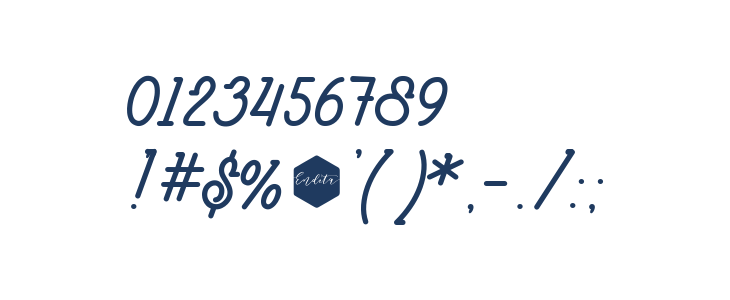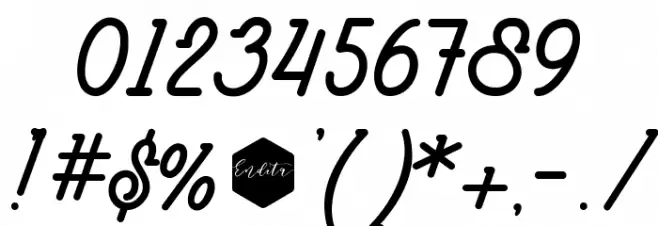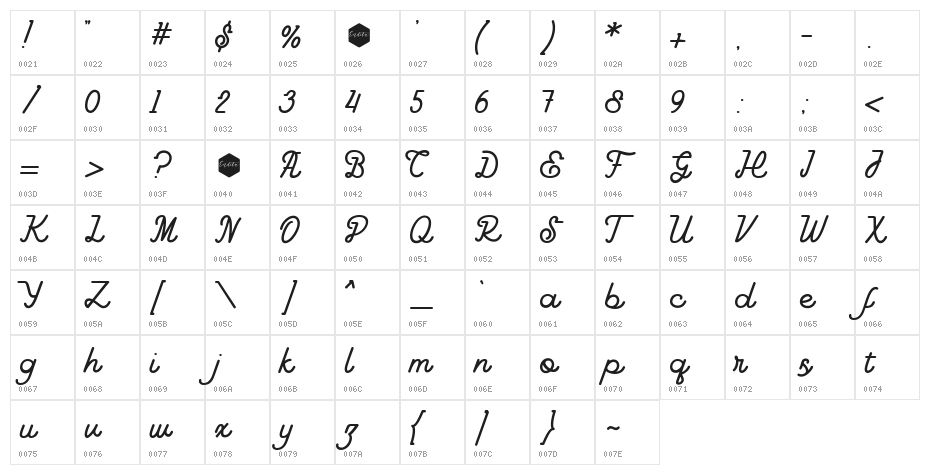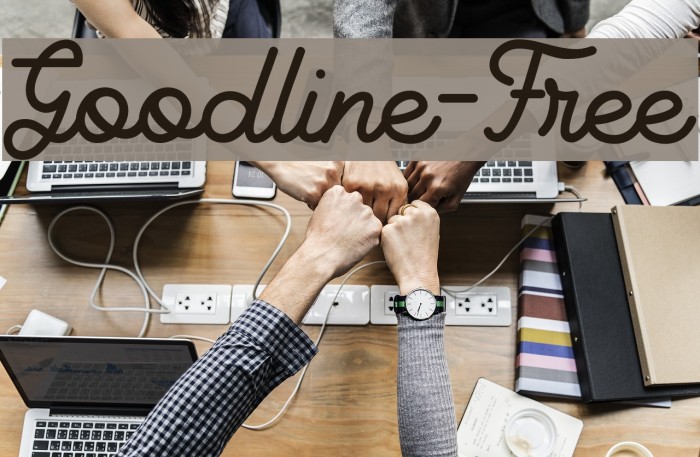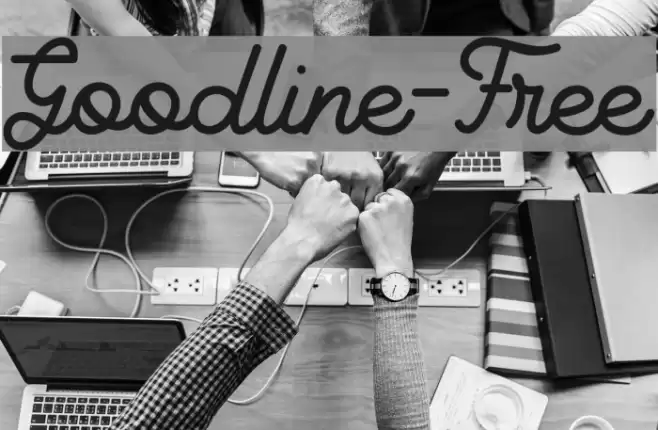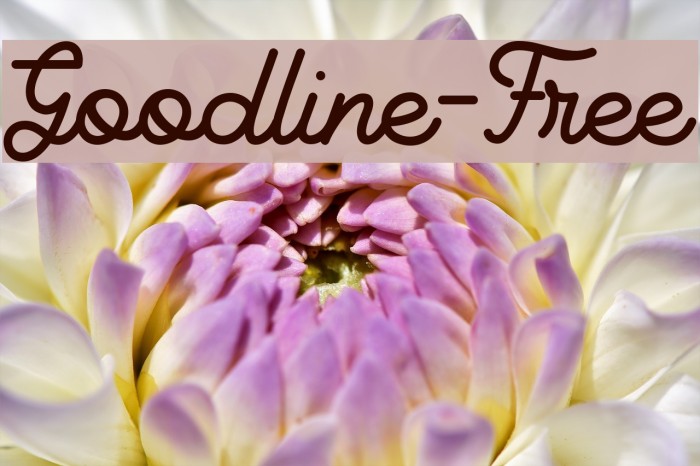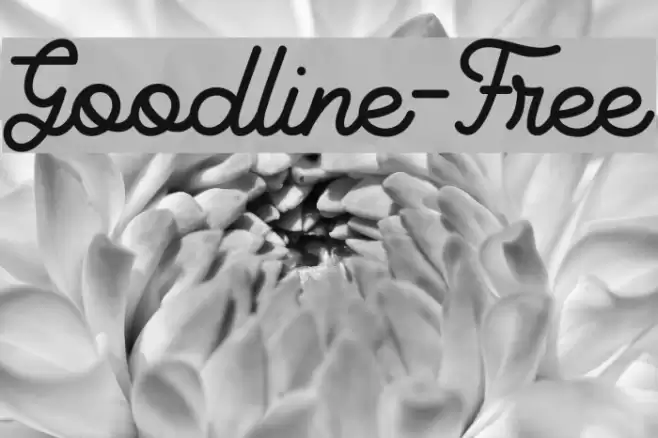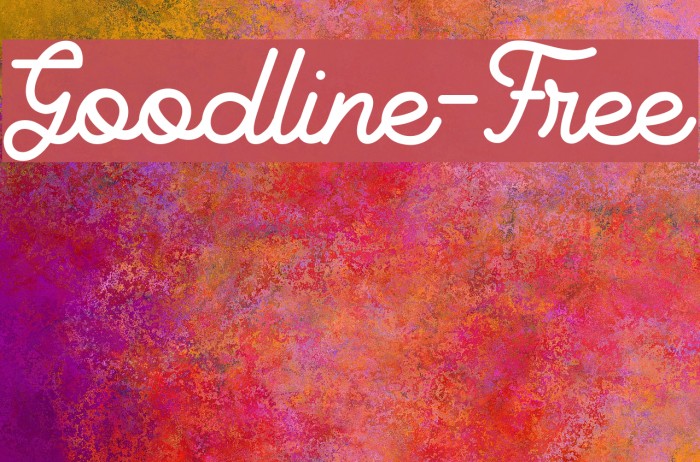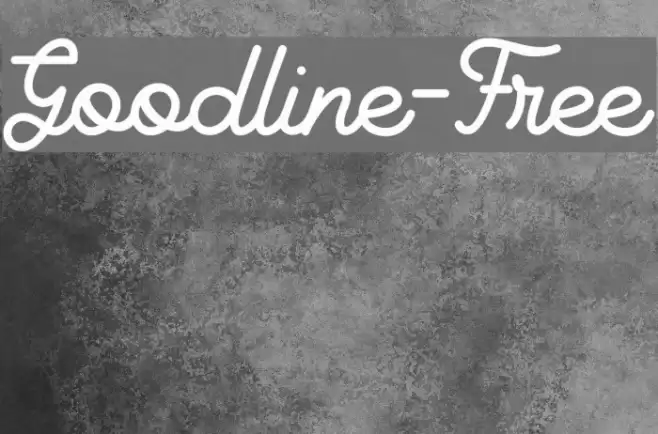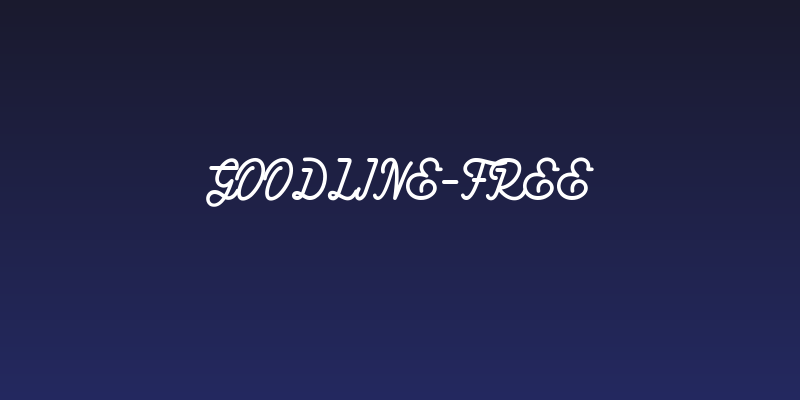
Goodline-Free Font
Goodline-Free Description
This font features a smooth, flowing script style that mimics elegant handwriting. The characters are connected, giving it a cohesive and fluid appearance. The uppercase letters are slightly more embellished, while the lowercase letters maintain a consistent, rounded form. Numbers and special characters follow the same script style, ensuring uniformity across all elements. The font's overall design is both sophisticated and approachable, making it suitable for a variety of creative applications.
| Proposed Projects | Ideal for wedding invitations, greeting cards, branding projects, and any design requiring a personal touch. |